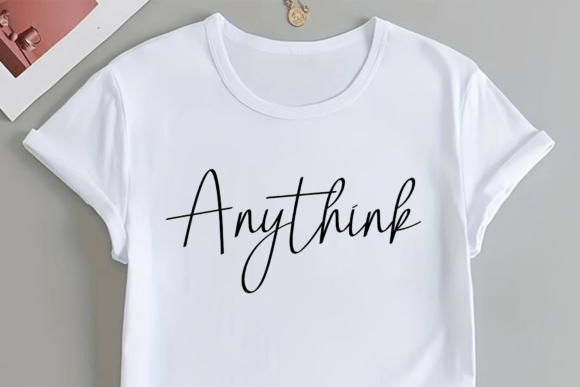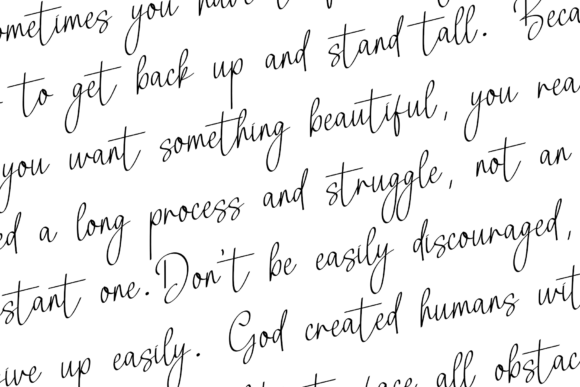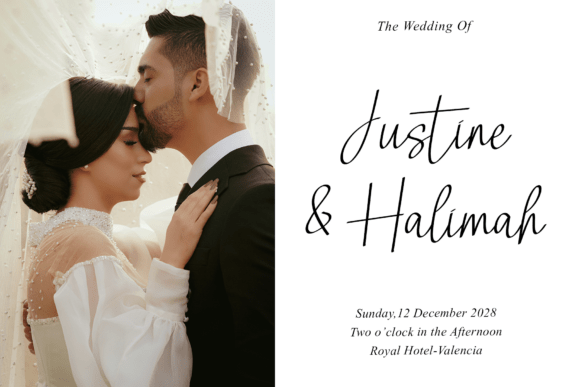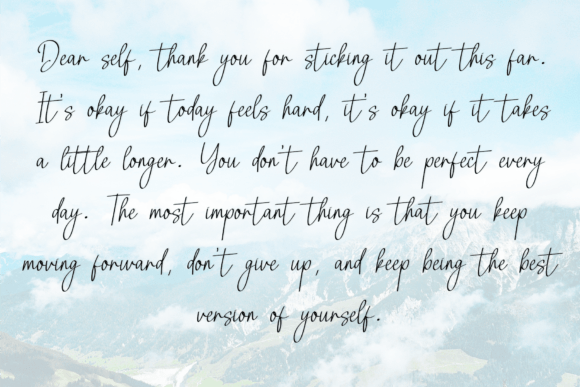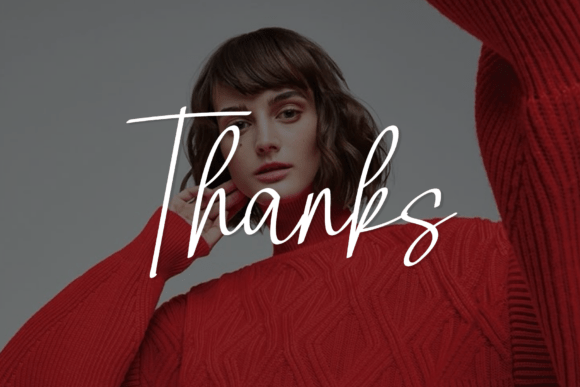
Unleashing the Sophistication of Your Design
Have you ever sat down with a blank sheet of paper, a pen, and a blank stare, waiting for inspiration to strike? This is where the magic happens – when the perfect combination of creativity and typography comes together. For designers, the search for that perfect font is a constant quest. And, for those who crave elegance and sophistication, the Carmeline Font is a game-changer.
With its fluid, handwritten script, Carmeline Font is the epitome of luxury and refinement. Whether you’re designing wedding stationery, event branding, or high-end editorial content, this font is sure to elevate your work to new heights. Its versatility and sophistication make it a valuable asset for designers, allowing them to create truly stunning and memorable pieces.
Carmeline Font Key Features
- Font Family: Carmeline
- Unique Characteristics: Elegant script style, swash variants, and contextual alternates for added flair and sophistication
Carmeline Font Review
As a designer, I was excited to dive into the world of Carmeline Font, a modern script font that promises to add a touch of elegance to any design. Here’s my honest review.
- Unique Character: Carmeline Font has a distinctive character that sets it apart from other script fonts. Its flowing lines and elegant curves make it perfect for adding a touch of sophistication to your designs.
- Legibility: Despite its ornate design, Carmeline Font is surprisingly legible, making it a great choice for body text and titles alike.
- Customization: The font offers a range of OpenType features that allow for advanced typography and customization options, making it a great choice for designers who want to push the boundaries of typography.
Overall, I’m impressed with Carmeline Font’s unique character and customization options. While it may have some limitations, it’s definitely a great choice for designers who want to add a touch of elegance to their designs. With its wide range of OpenType features and high-quality design, I’d highly recommend it to anyone looking to elevate their typography game.
Tips for Getting the Most Out of Carmeline Font
For optimal results, use Carmeline Font in bold or italic styles to add emphasis and visual interest.
Pair Carmeline Font with complementary fonts to create a harmonious design.
Experiment with different font sizes and colors to achieve the desired effect.
Carmeline Font is ideal for:
- Editorial and publishing designs
- Artistic and creative projects
Q: What is the character set for Carmeline?
The Carmeline font family includes a comprehensive character set, covering Latin, Greek, and Cyrillic scripts. This includes a wide range of punctuation, symbols, and language-specific characters. The font also includes a range of stylistic sets and swashes, allowing designers to add extra flair to their designs.